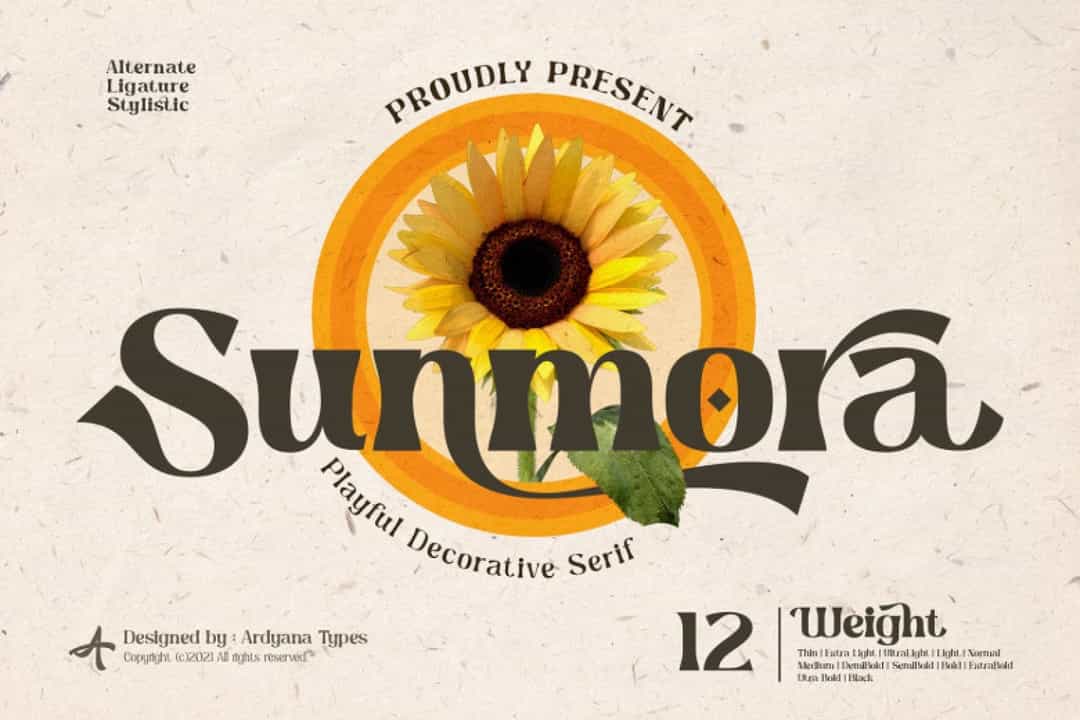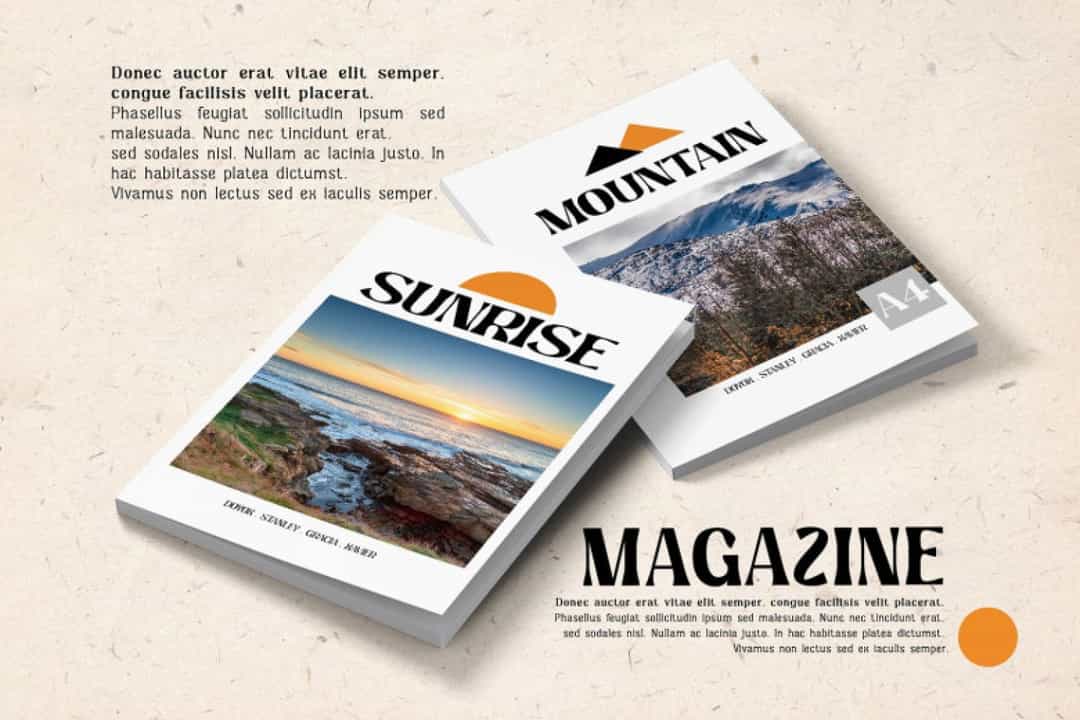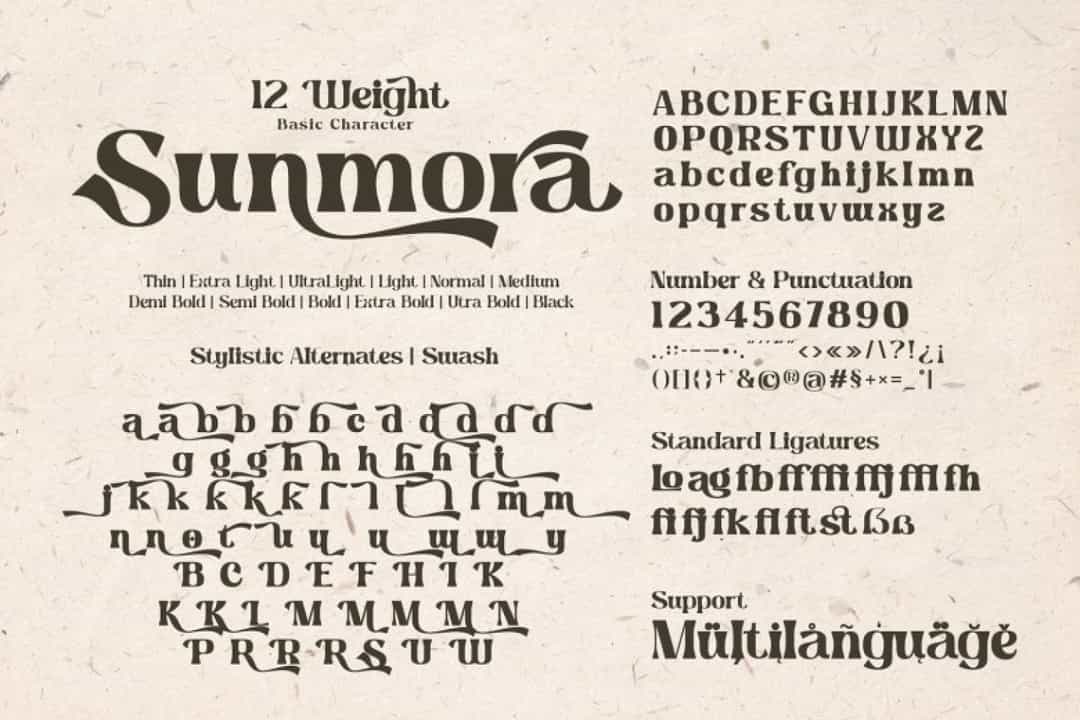
Sunmora is an eye-catching, thick serif typeface. Distinguished by its sleek curves and perfect for editorial or fashion designs. Use it in your designs – you’ll love what comes out!